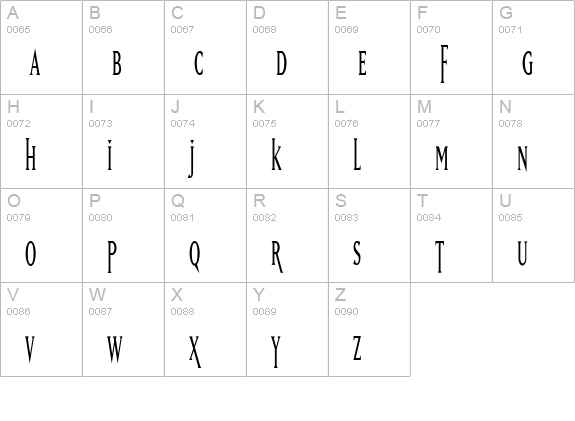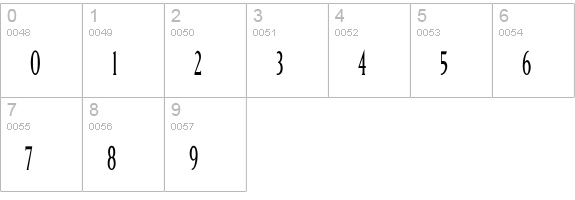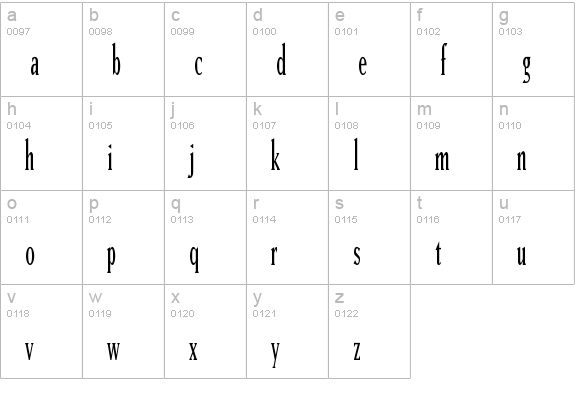
MatrixTall Font Details
MatrixTall font is a modern and sleek typeface that exudes sophistication and elegance. Its tall and slender letterforms make it perfect for creating a stylish and professional look in your designs. The clean lines and sharp edges of MatrixTall font give it a contemporary feel that is sure to catch the eye. The best part? MatrixTall font is available for free download at FontsMarket.com, making it easily accessible for all your design projects. Whether you're working on branding, advertising, or any other creative endeavor, MatrixTall font is a versatile choice that will elevate your work to the next level. Download it now and give your designs a touch of sophistication and style.